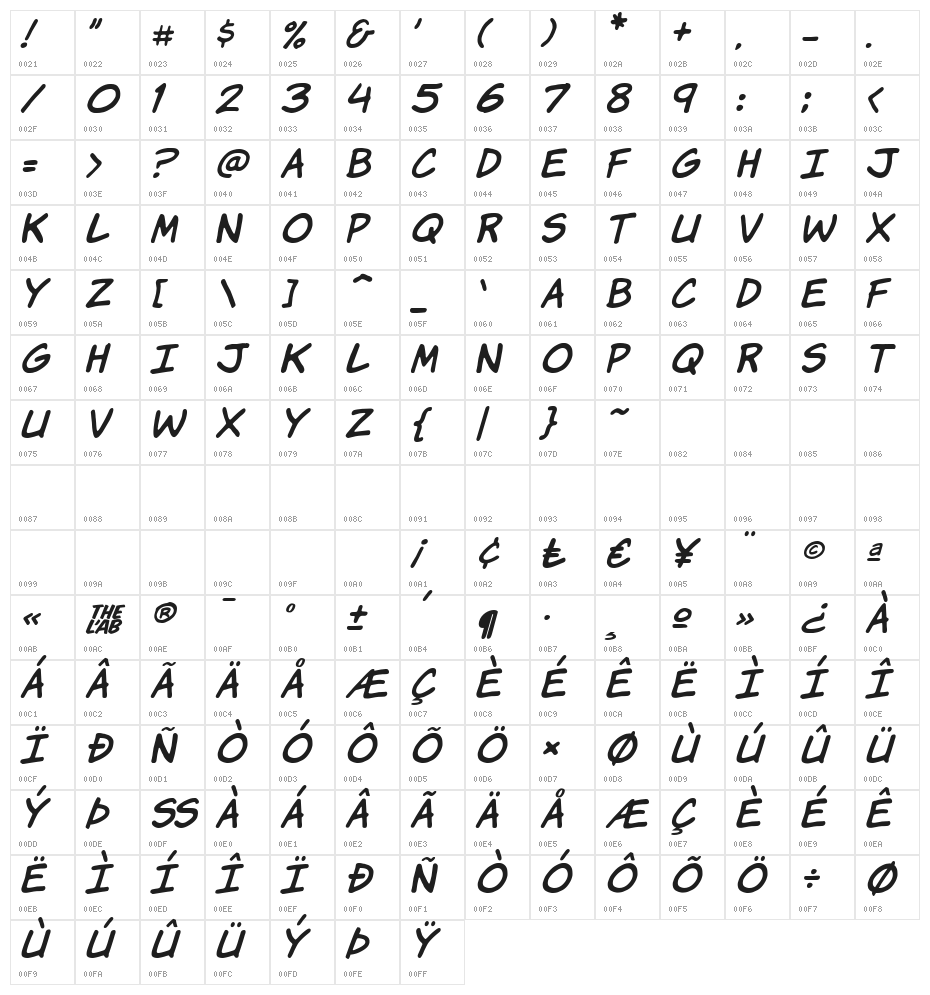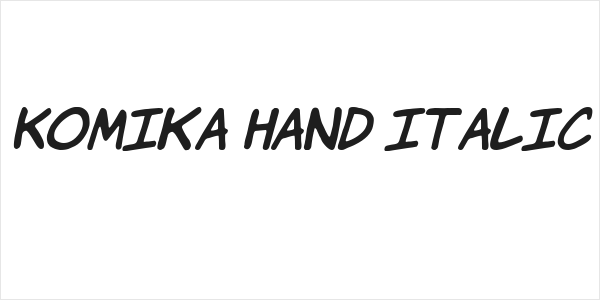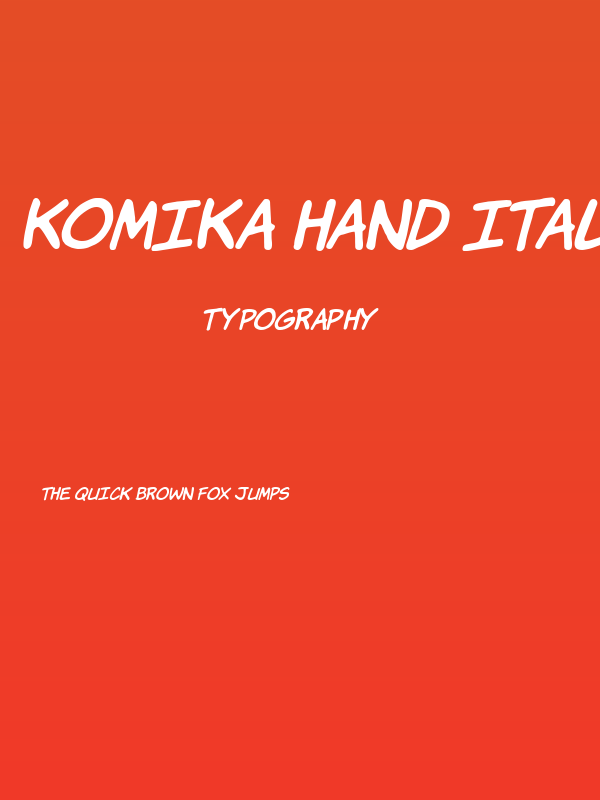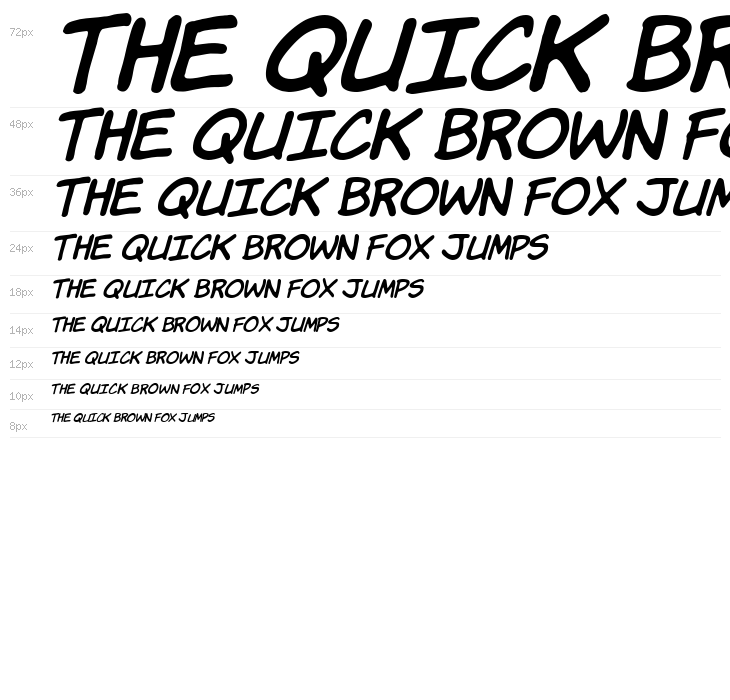
Komika Hand Italic Font
Komika Hand Italic Description
This playful and dynamic font features a handwritten style with a casual, comic-like appearance. The letters are slightly slanted, giving it an italicized look that adds to its informal charm. Each character is bold and rounded, with smooth curves and a consistent stroke width that maintains readability. The font exudes a sense of fun and creativity, making it ideal for projects that require a lighthearted and approachable feel. Its design is reminiscent of comic book lettering, with a touch of whimsy that can bring a sense of humor and warmth to any text.
Overall StylePlayful
Use CaseHeadlines, Logos, Informal Text
Proposed ProjectsIdeal for comic books, children's books, playful branding, greeting cards, and informal posters.